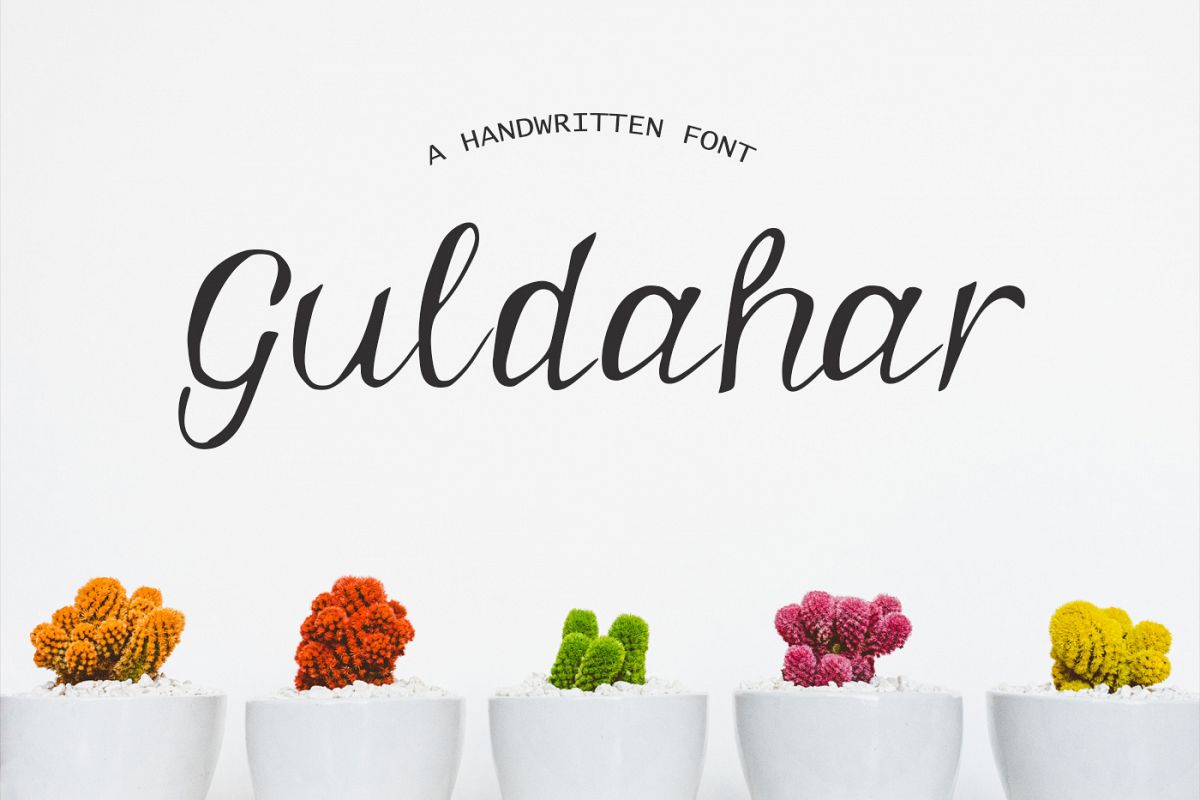
Guldahar Handwritten Font
Guldahar Font it's a wonderful font with a unique, detailed and handmade look. These fonts looks amazing in all caps with a wide-set spacing if you want to try a classy look, or beautiful on its own in capital and lowercase letters for something completely timeless. Perfect for gorgeous logos, displays, headers, invitations, save the dates, weddings, titles, web layouts and branding, etc.